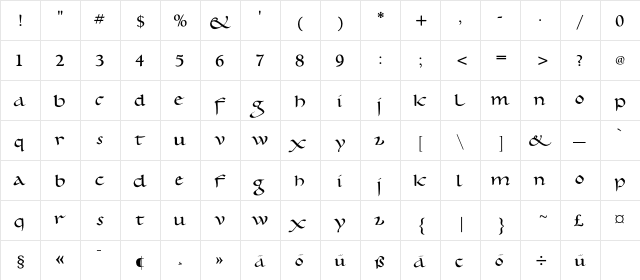
CarolusMagnus Regular
Design Context for CarolusMagnus Typeface
CarolusMagnus is a composed and adaptable typeface that performs quietly and consistently across a wide range of design contexts.